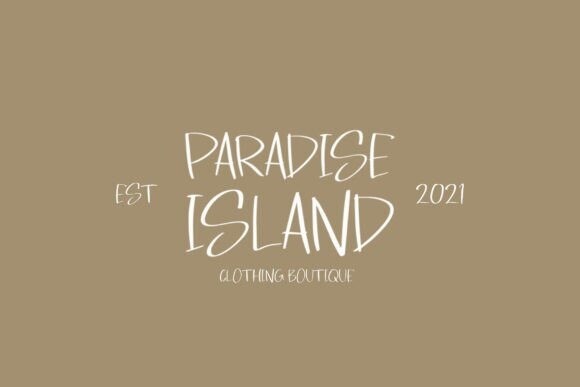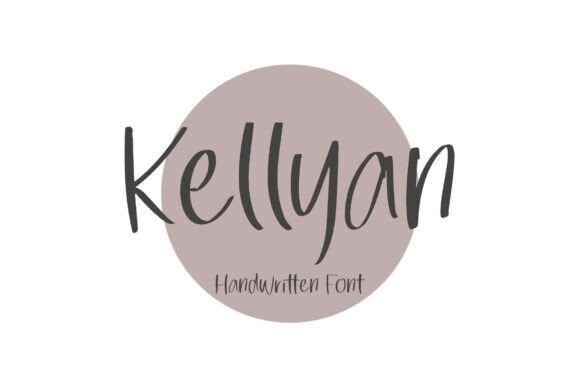
Kellyan Font
Designer: dwikrisdiantoro9
Kellyan Font is a vibrant handwriting font with a bold handbrush style, designed with unique, artistic letterforms that add a natural, expressive touch to any project. Perfect for enhancing product visuals, Kellyan gives your designs a fresh, dynamic look, making it ideal for branding, packaging, social media, and other creative work.